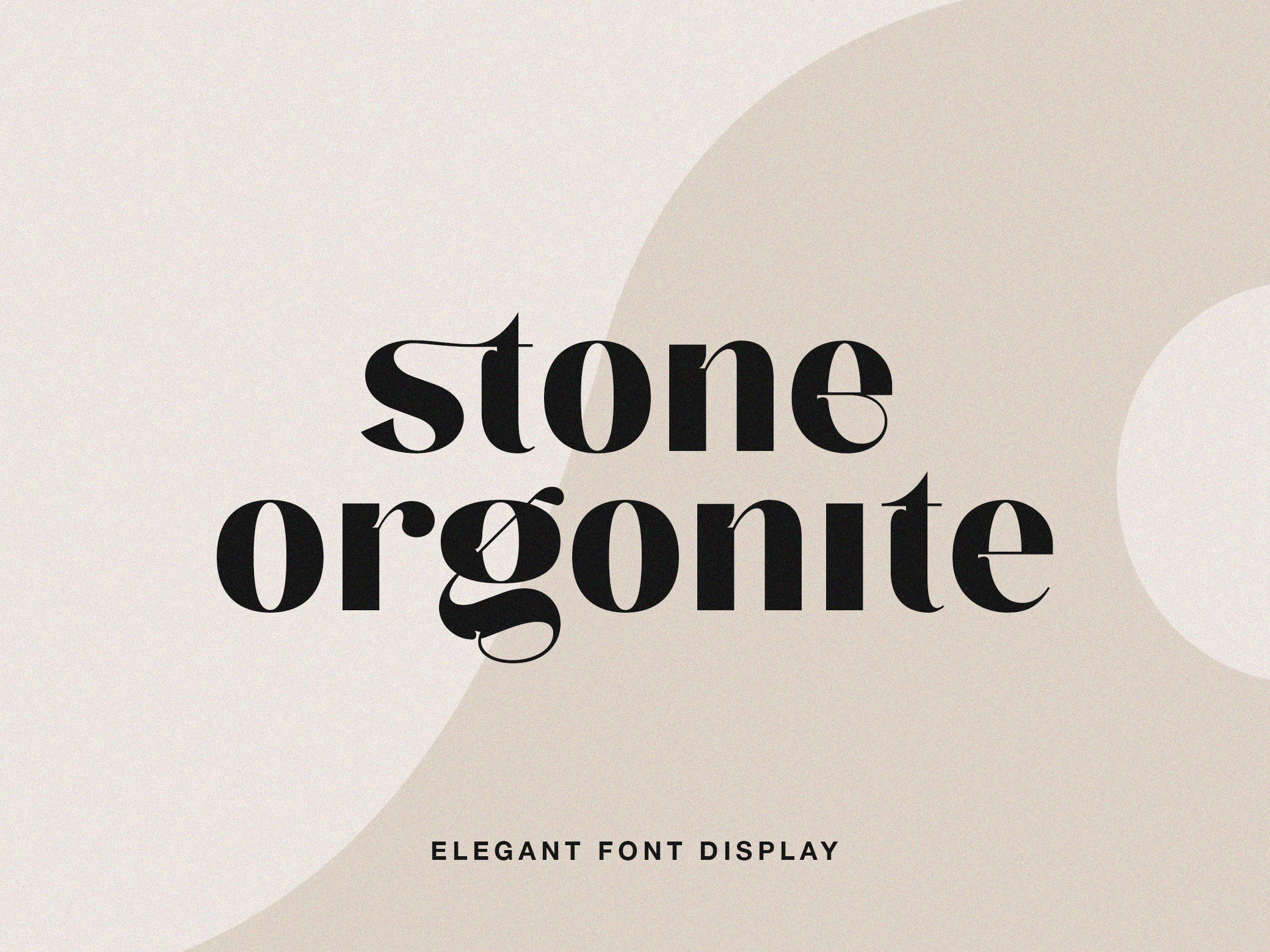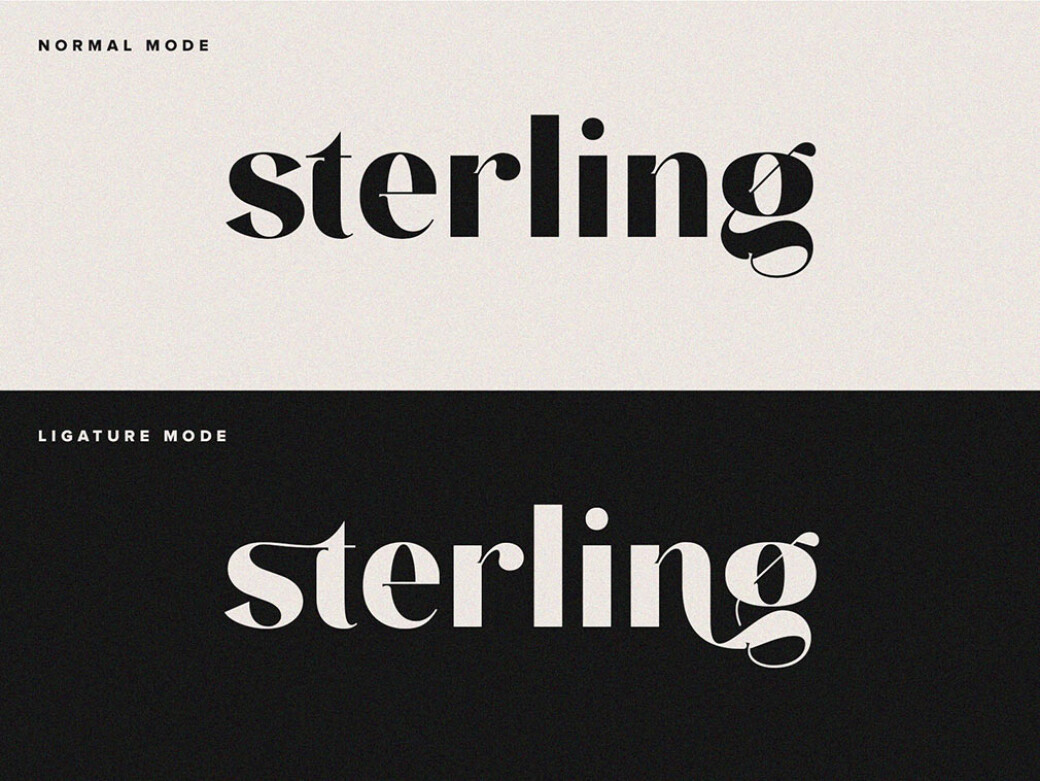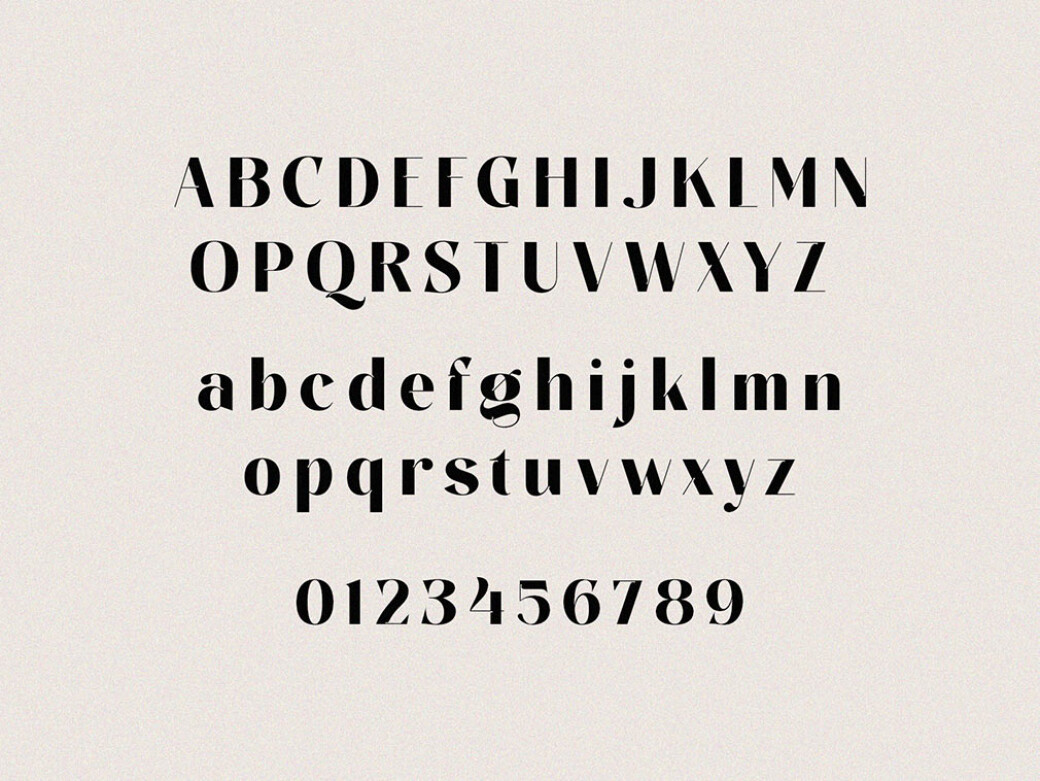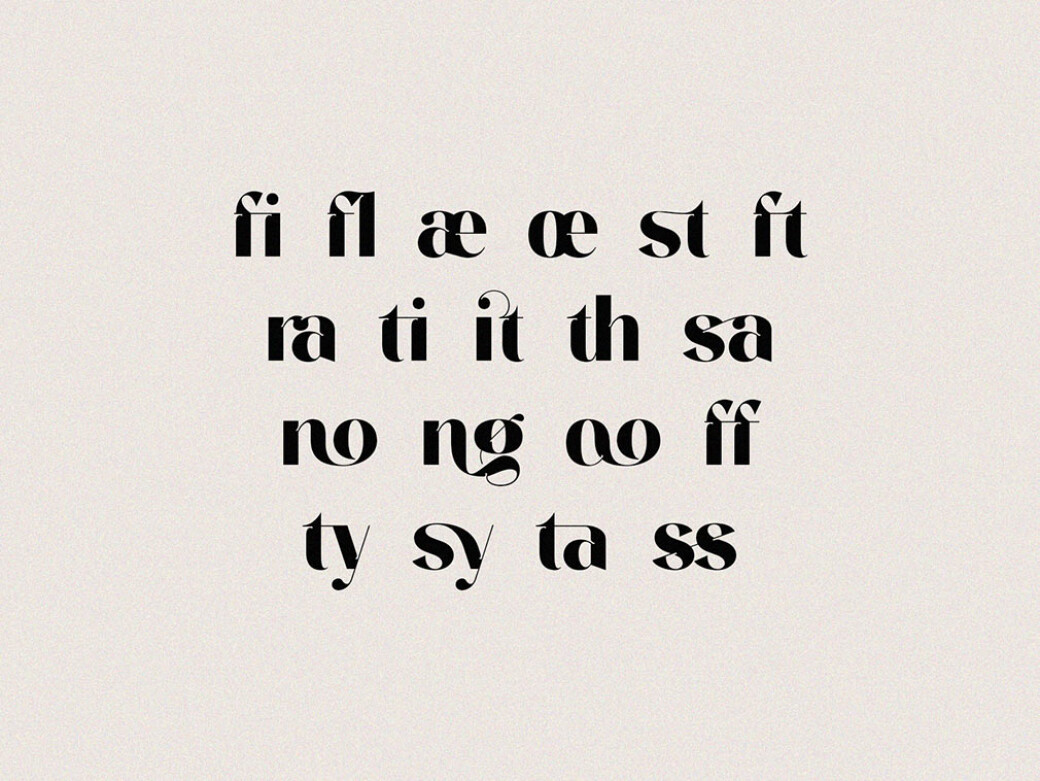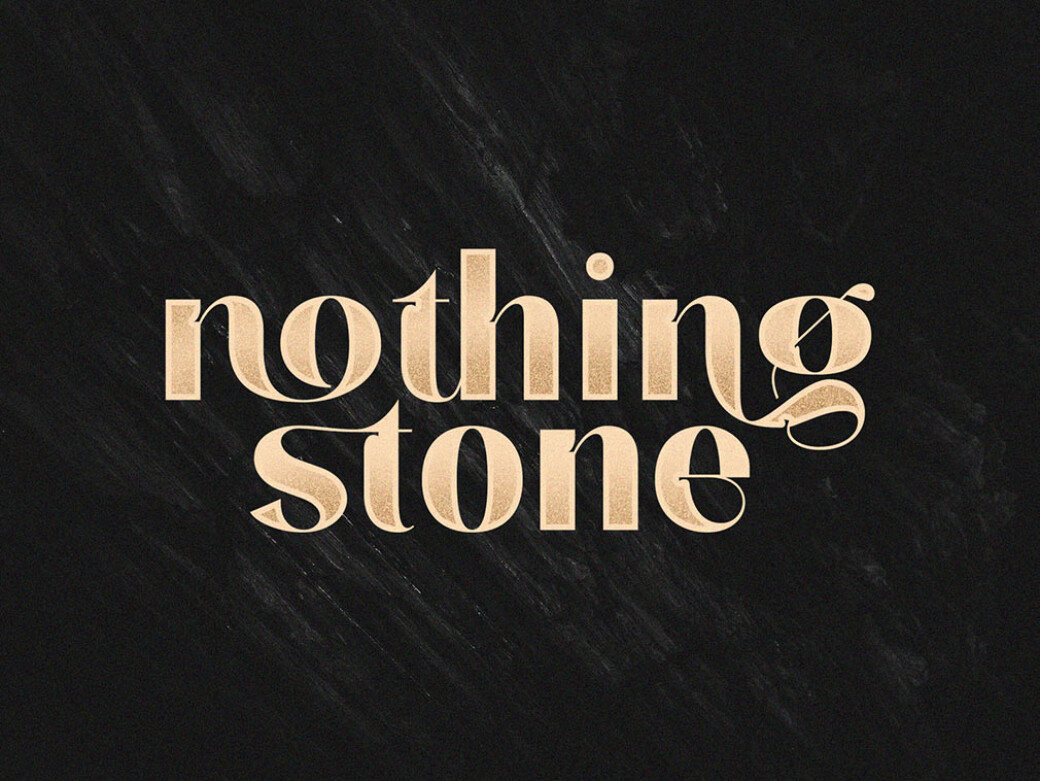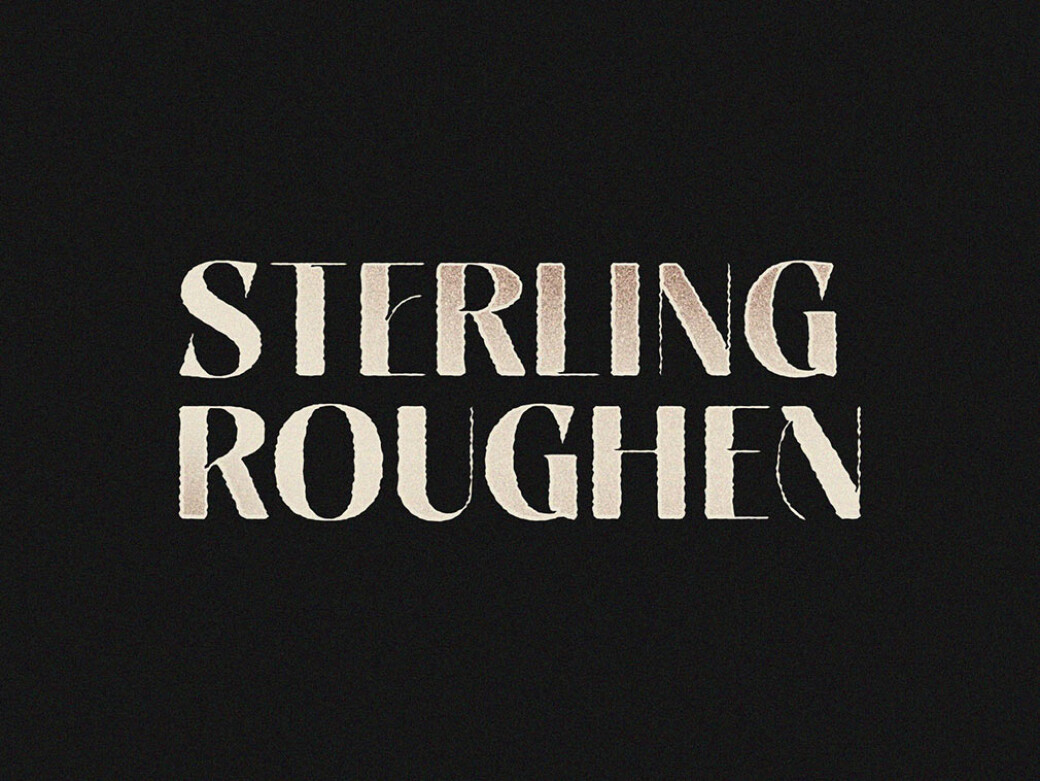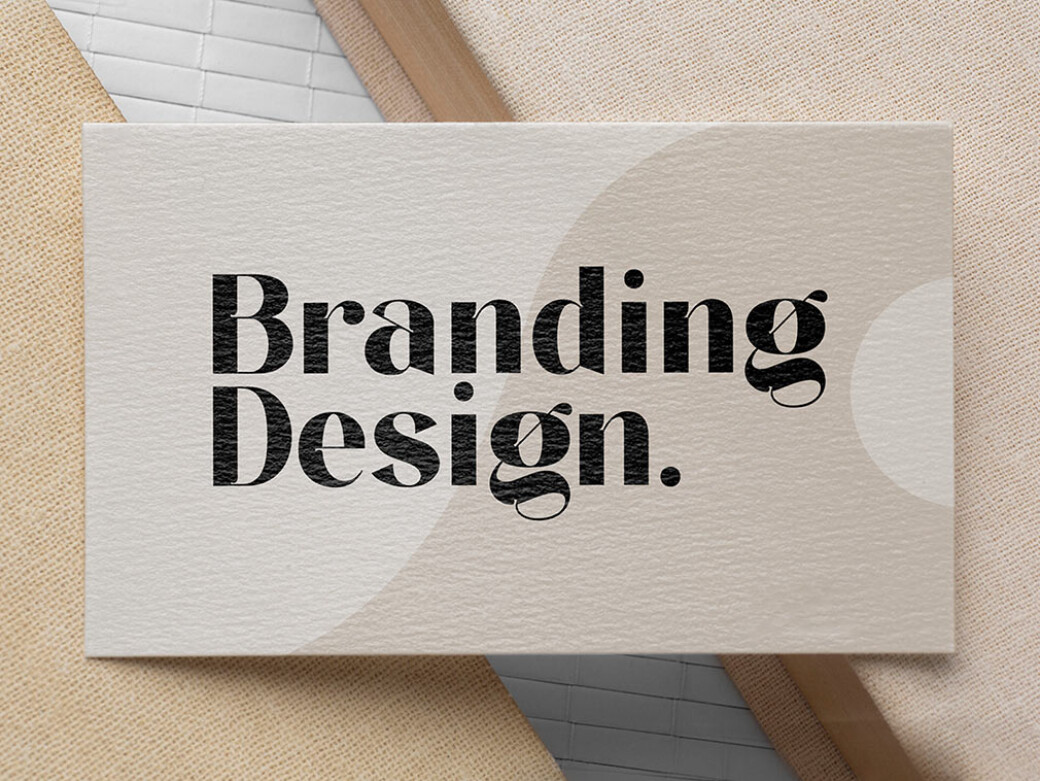
Stone Orgonite Display Font
People look for sources of energy everywhere: in nature, activities, objects and even themselves. Like orgonite stone stores and spreads its power, this display font charges your designs!What this typeface has that can compete with the other ones in the same category? It's a whole package consisting of uppercase, ligatures, numerals, punctuation marks, multilingual support but most importantly, the rough vintage style it carries. Think of combining it with a tender monoline script and highlighting its brutal manner, bulky forms and square-like characters. It's just like these alchemy imitating games, where you have to mix various ingredients and never know what element you get as a result. And the process is so exciting!